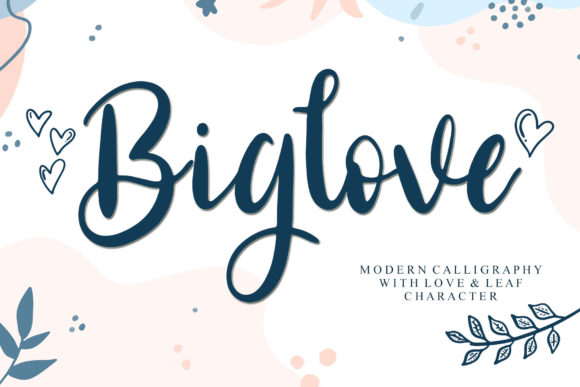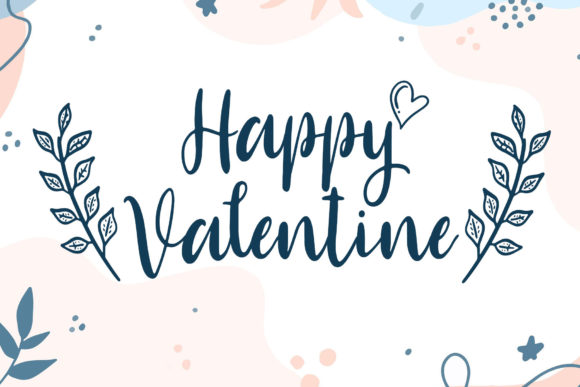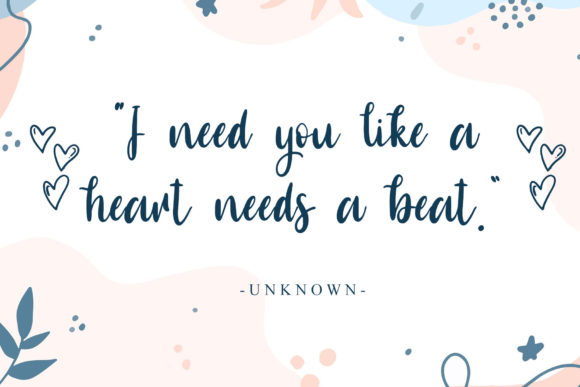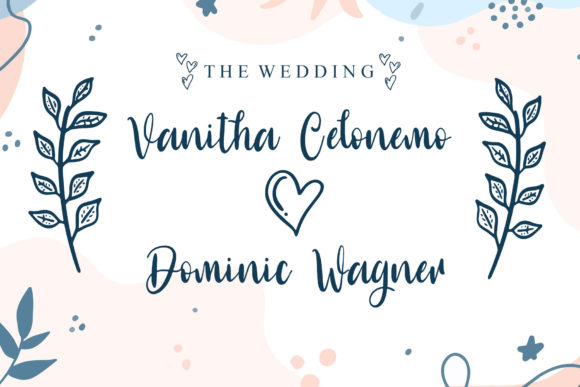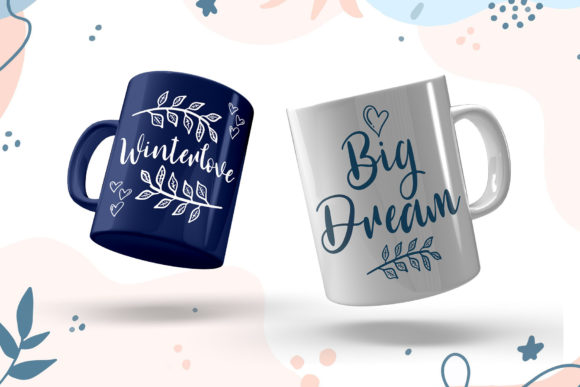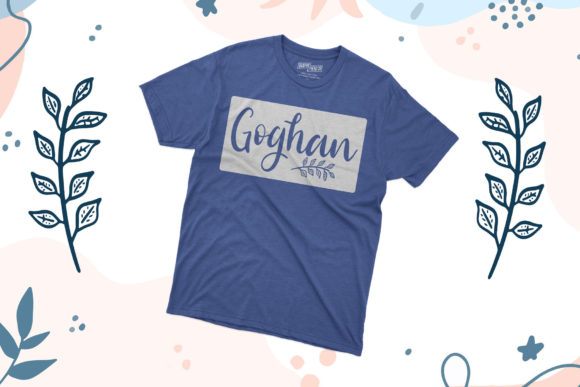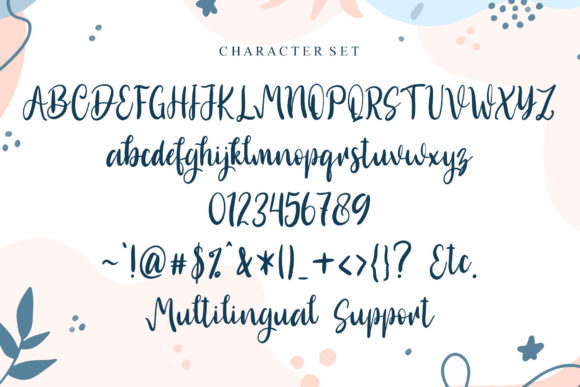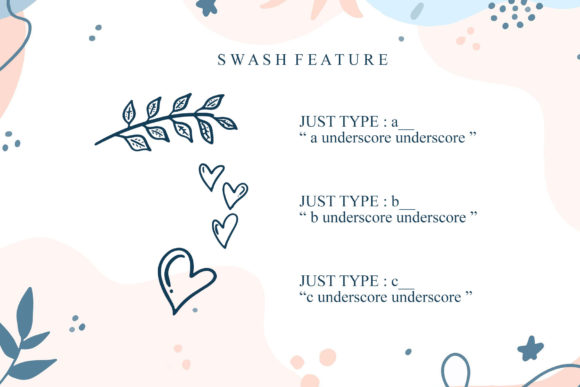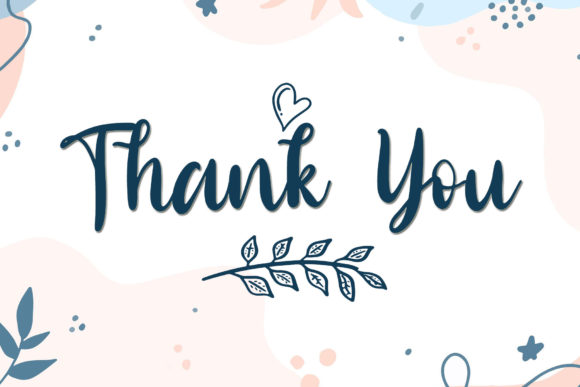
Biglove Font
About Biglove Font
Biglove is a dazzling script font. This font is neatly crafted and highly detailed. It is also PUA encoded which means you can access all glyphs and swashes with ease!